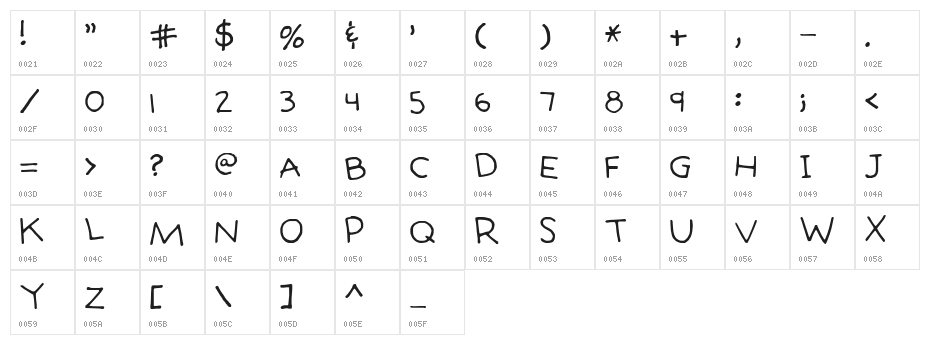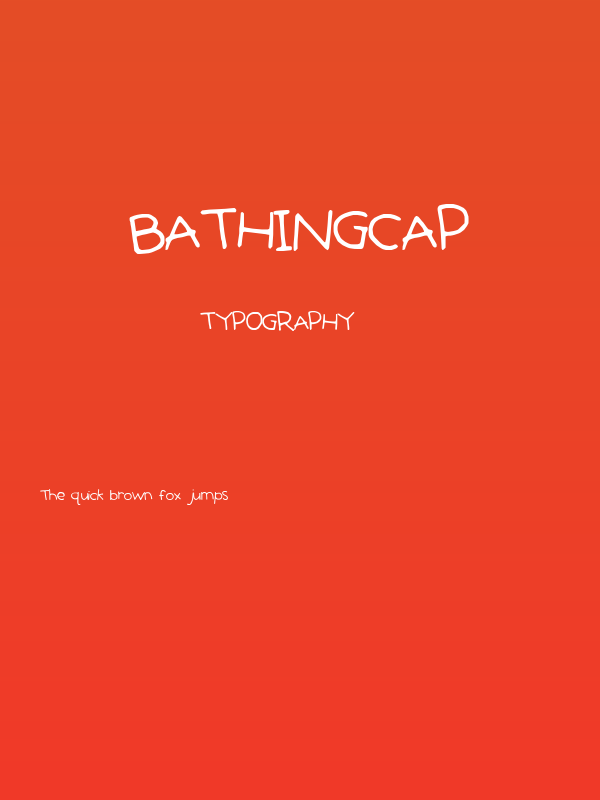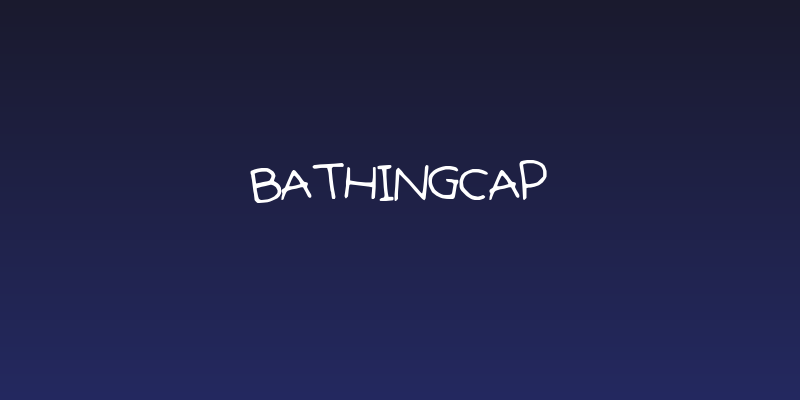
Bathingcap Font
Bathingcap Description
This playful and informal font features a handwritten style with a casual, relaxed appearance. The characters are slightly irregular, giving it a personal touch that mimics natural handwriting. The strokes are consistent in thickness, providing a uniform look while maintaining a sense of spontaneity. The font includes a full set of uppercase and lowercase letters, numbers, and a variety of special characters. Its friendly and approachable design makes it suitable for projects that require a human touch or a sense of whimsy.
Overall StyleCasual
Use CaseHeadlines, Informal text, Creative projects
Proposed ProjectsIdeal for children's books, greeting cards, personal blogs, and informal branding.